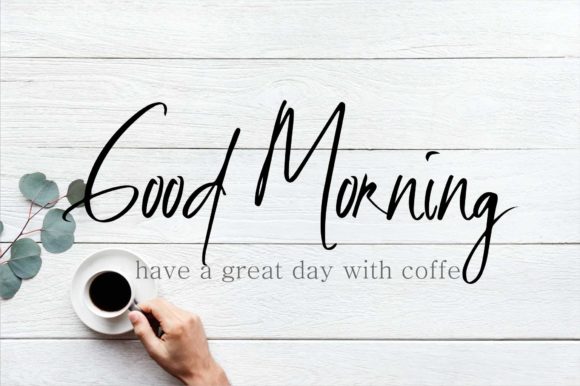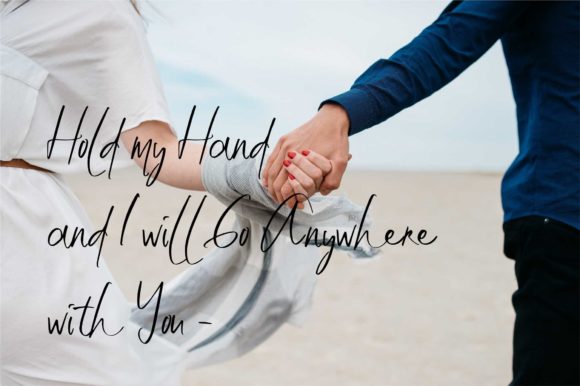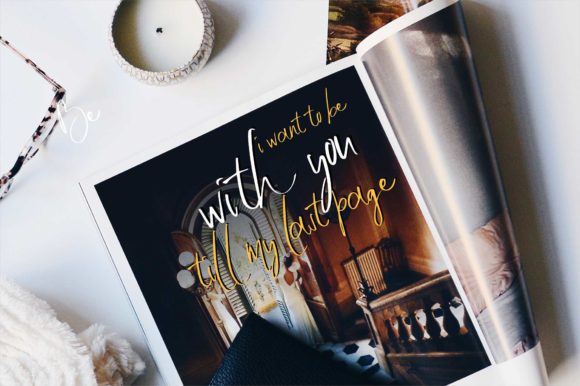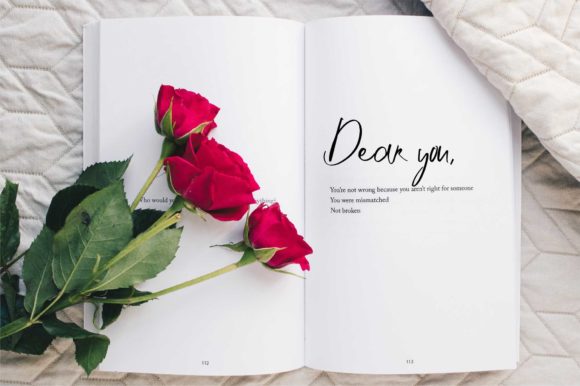
The De Alhambra Font: A Classy Handwritten Script for Creative Projects
I’ll never forget the time I was working on a wedding invitation project for a client, and I just couldn’t find the perfect font to match the elegant and sophisticated vibe they were going for. I scoured the internet, tried out dozens of fonts, but nothing seemed quite right. That was until I stumbled upon the De Alhambra font. It was like a breath of fresh air – its classy, handwritten script style instantly elevated the design and made it exactly what my client was looking for.
A Personal Review of De Alhambra
- ✨ Unique and elegant handwritten script style that’s perfect for making a statement
- ✅ Highly versatile – works great for wedding invitations, labels, signatures, posters, love quotes, blog posts, social media, and more
- 💫 Beautifully crafted letters with a high level of detail and attention to design
- 🎨 Supports OpenType features, glyphs, and stylistic alternates, giving you plenty of creative freedom
While De Alhambra is an amazing font, it’s not without its quirks. Here are a few things to keep in mind:
- 🤔 May not be the best choice for very long blocks of text – it’s more suited for headlines, titles, and short paragraphs
- ⚠️ Some users have reported issues with kerning on certain letters – but this can usually be adjusted in your design software
The Story Behind De Alhambra
De Alhambra was designed with the intention of creating a beautiful, elegant handwritten script font that would evoke the feeling of luxury and sophistication. The designer drew inspiration from classic calligraphy and hand-lettering techniques to create a unique and timeless font.
Q: What is De Alhambra?
A: De Alhambra is a unique handwritten script font with a classy style that’s perfect for making a statement.
Q: What can I use De Alhambra for?
A: De Alhambra is highly versatile and can be used for a wide range of projects, including wedding invitations, labels, signatures, posters, love quotes, blog posts, social media, and more.
Q: Does De Alhambra support OpenType features?
A: Yes, De Alhambra supports OpenType features, glyphs, and stylistic alternates, giving you plenty of creative freedom.